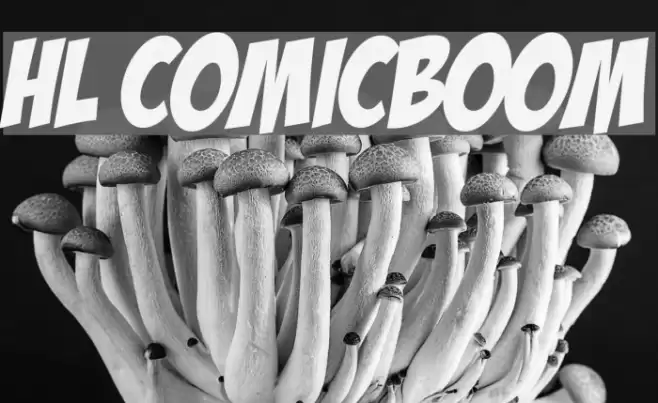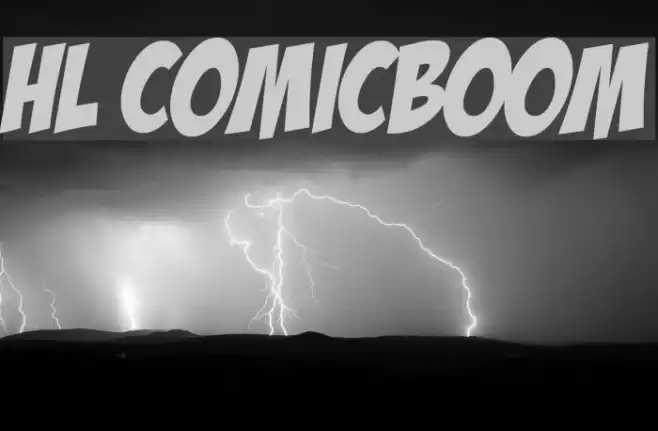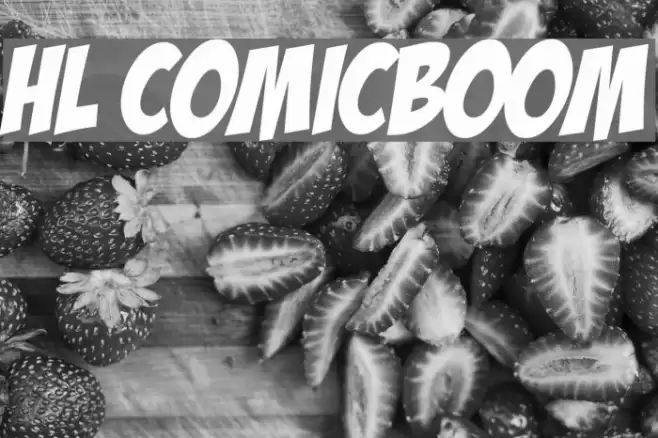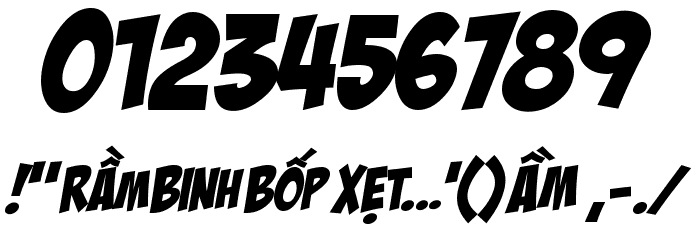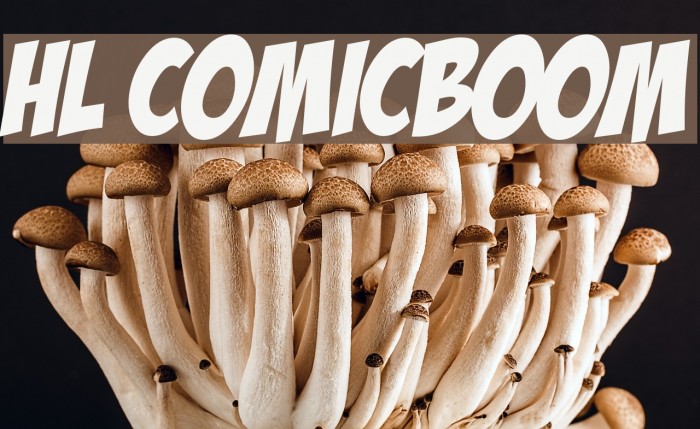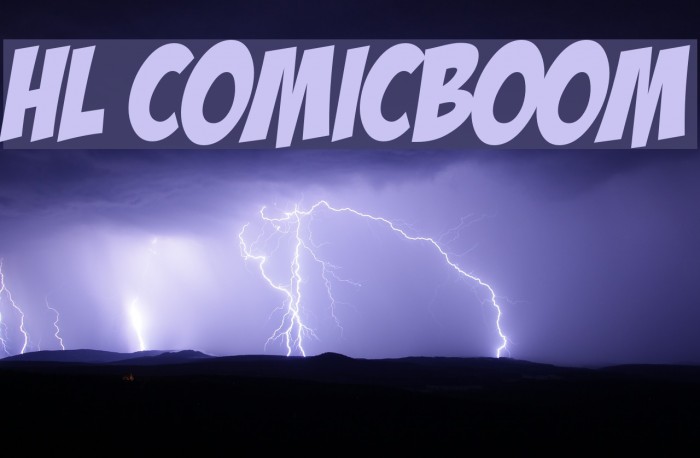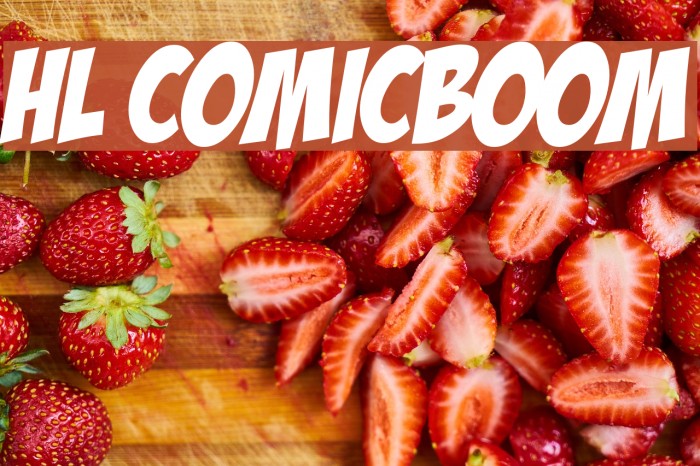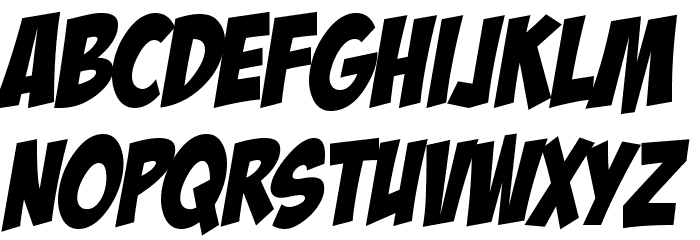
HL ComicBoom
This font exudes a playful and energetic vibe, characterized by its bold and dynamic letterforms. The letters are slightly slanted, giving a sense of movement and excitement. The strokes are thick and consistent, providing a strong visual impact. The overall design is reminiscent of comic book lettering, making it ideal for projects that require a fun and lively aesthetic. The characters are well-spaced, ensuring readability while maintaining a compact appearance. This font is perfect for capturing attention and conveying a sense of action and adventure.
A bold, dynamic font with a playful comic book style.
- Proposed Projects: Ideal for comic books, children's books, posters, and playful branding.
- Overall Style: Playful, Energetic
- Use Case: Headlines, Logos, Posters